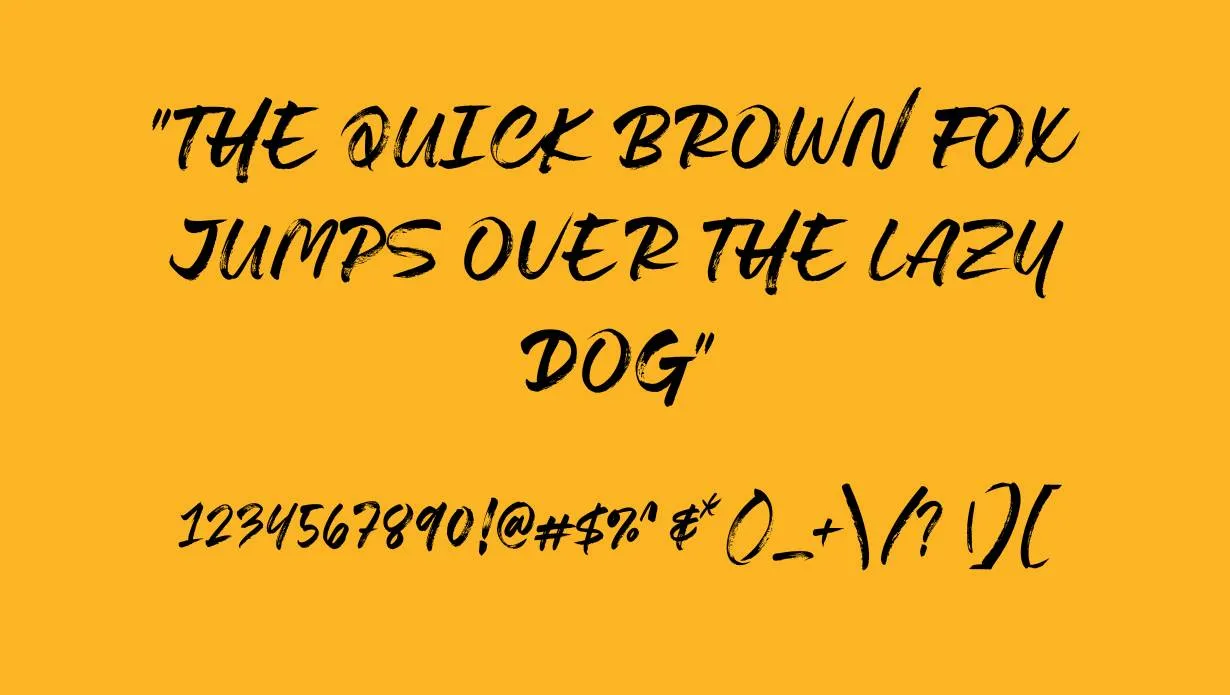
Lovely Boys Font is a cheerful and youthful typeface that adds a touch of joy to your designs. It’s great for kids’ products, children’s books, and lively events.
Whether you’re planning a birthday party invitation or designing a fun product label, Lovely Boys Font brings a sense of happiness and playfulness to your work.